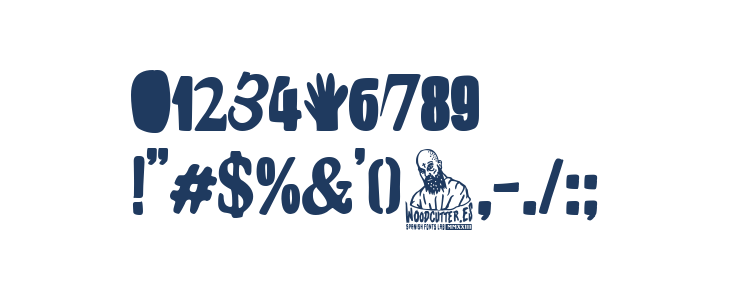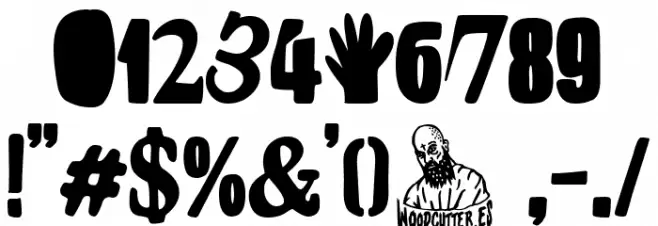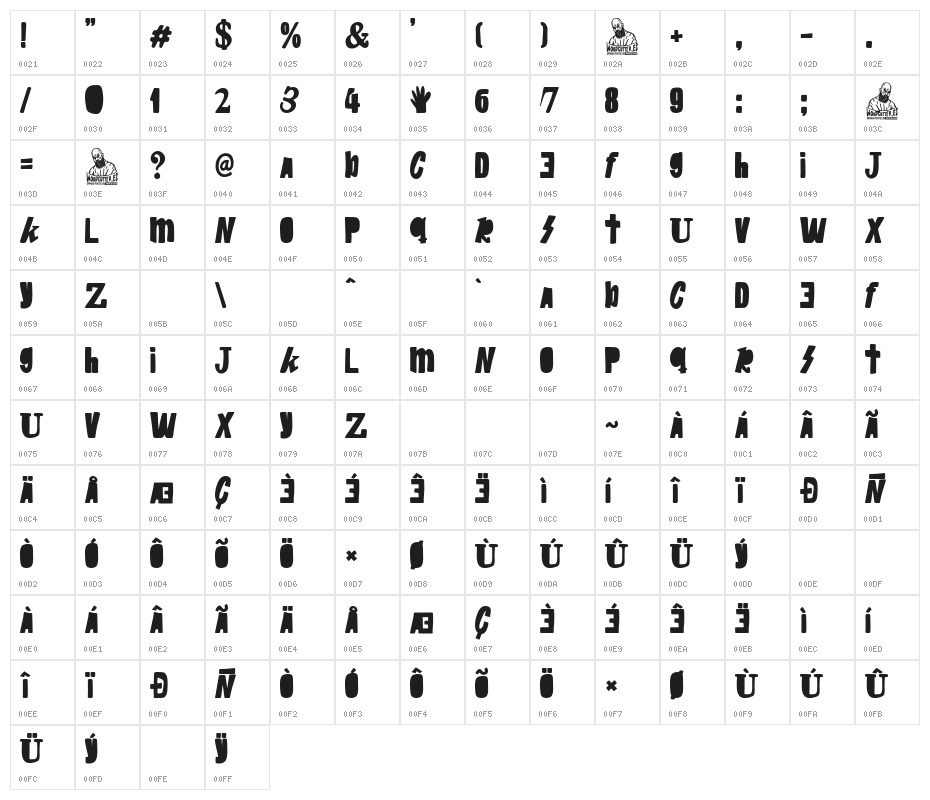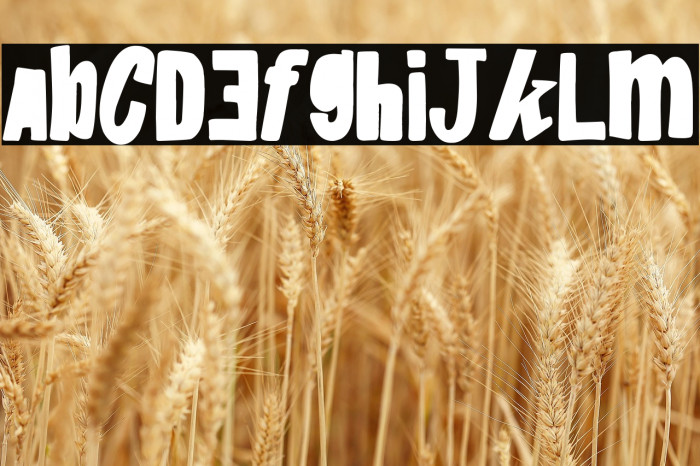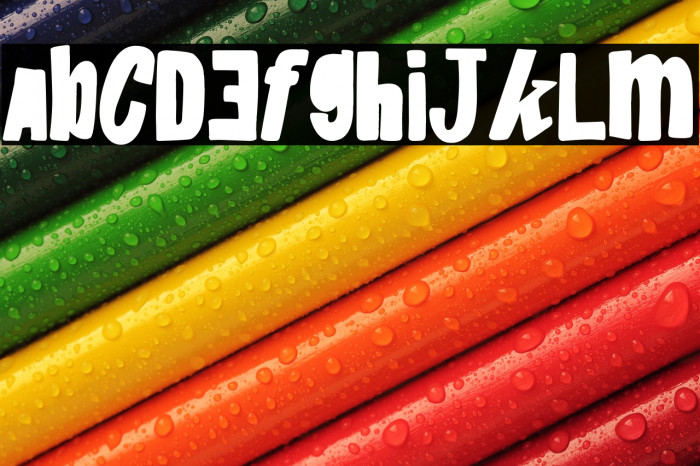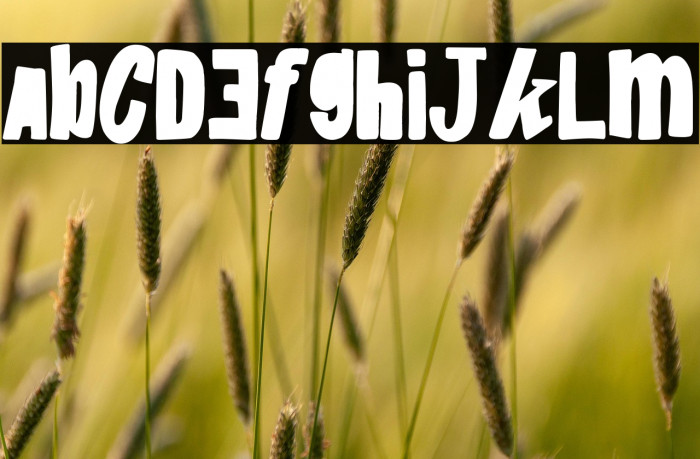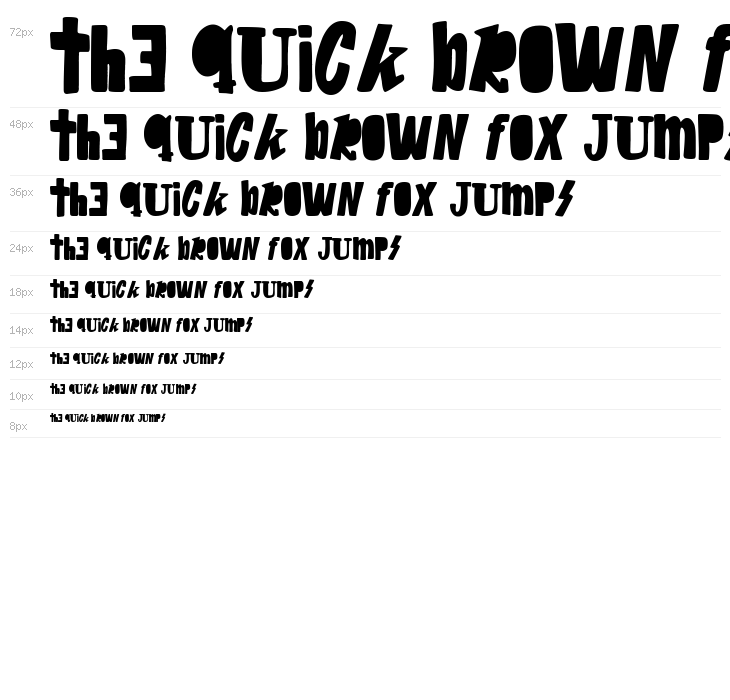
Rage & Paella Font
Rage & Paella Description
This font is a bold and playful typeface with a distinctive, quirky style. The characters are irregular and have a hand-drawn appearance, giving them a unique and artistic flair. The uppercase and lowercase letters are creatively designed with varying thickness and unexpected angles, adding to the font's dynamic and energetic feel. The numbers and special characters maintain this whimsical style, making them stand out with their bold presence. This font is perfect for projects that require a fun and unconventional look.
| Overall Style | Playful and Artistic |
| Use Case | Headlines, Posters, Creative Branding |
| Proposed Projects | Ideal for posters, children's books, comic strips, and creative branding projects. |